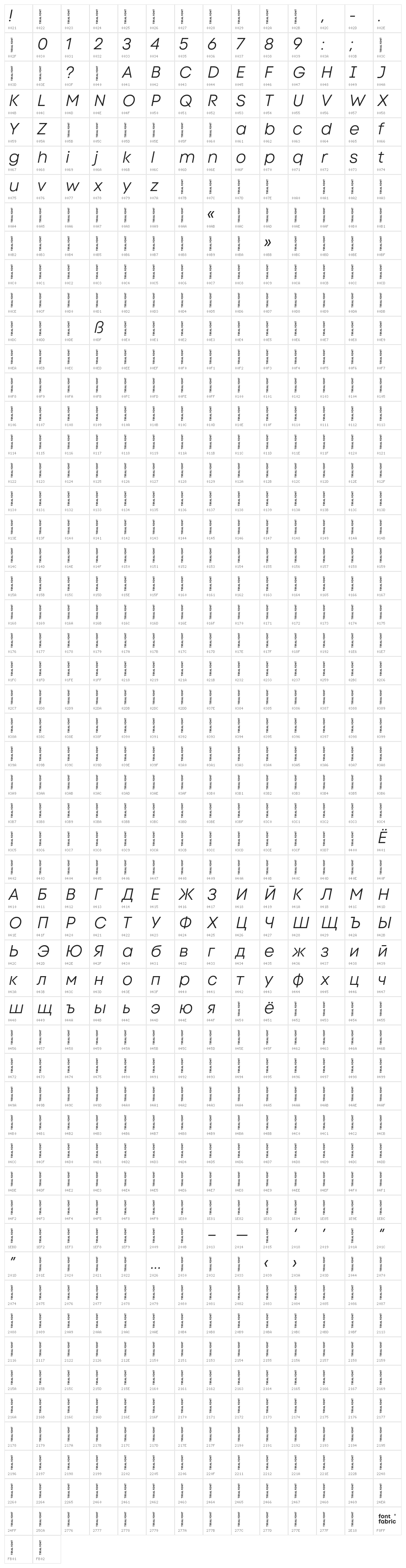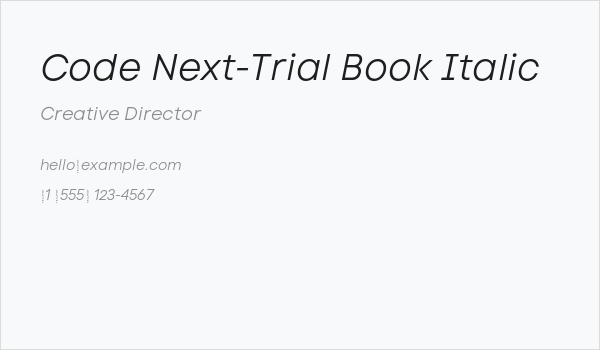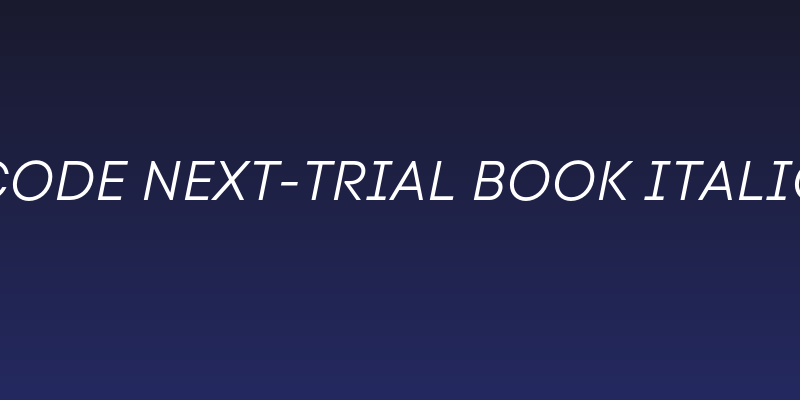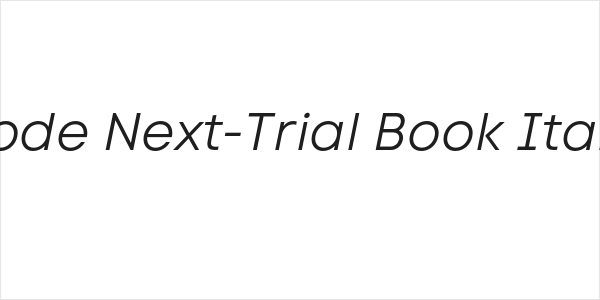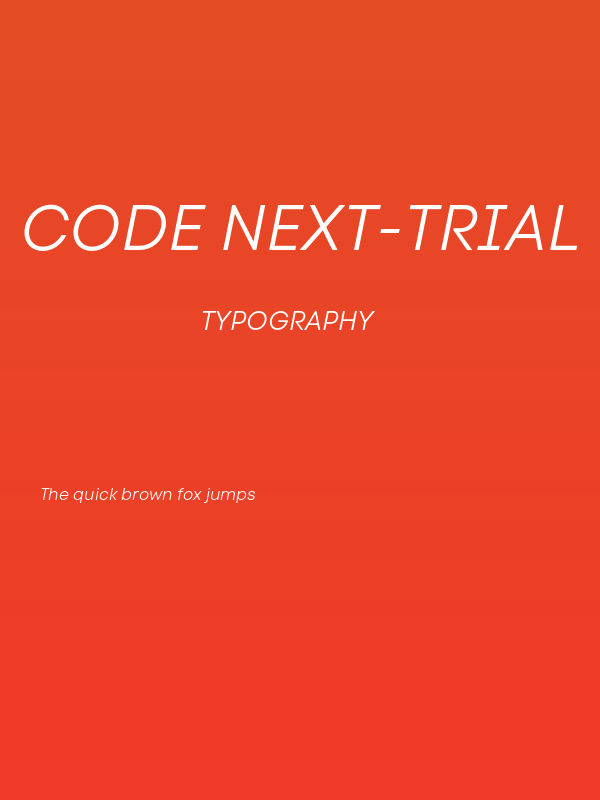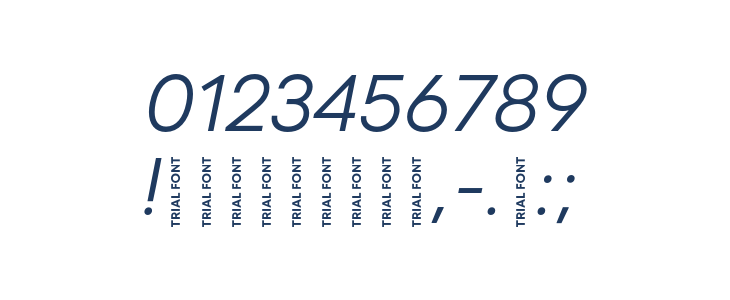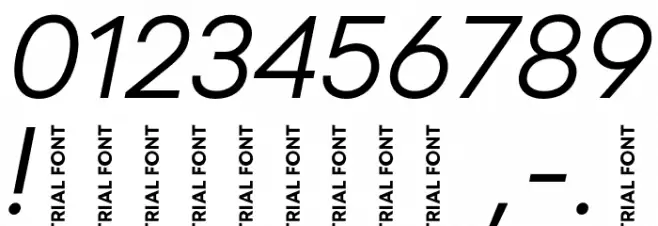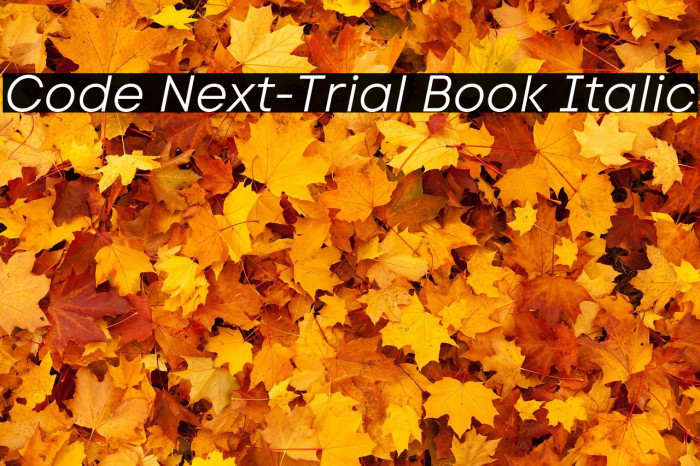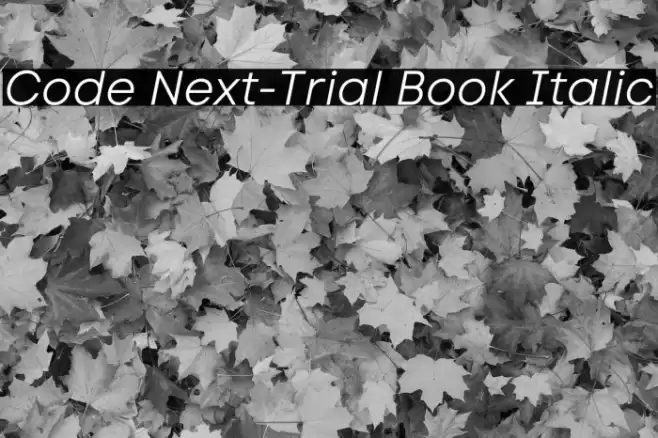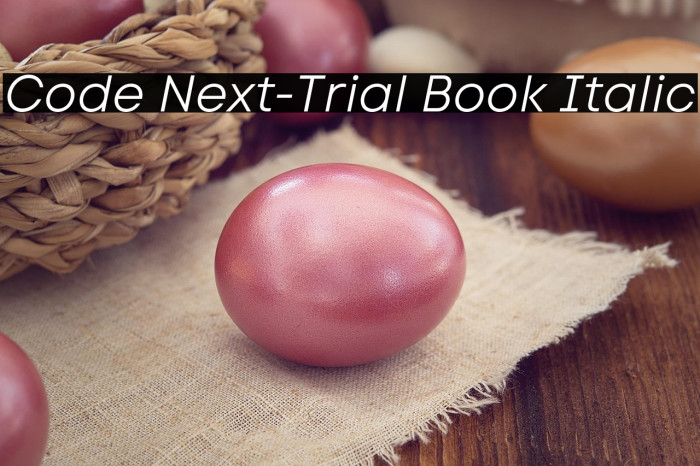
Code Next-Trial Book Italic Font
This font features a sleek and modern design with a slight italic slant, giving it a dynamic and forward-moving appearance. The characters are clean and well-defined, with a consistent stroke width that maintains readability across various sizes. The uppercase and lowercase letters are proportionate, and the numerals are clear and distinct. The special characters are designed to complement the overall style, making it versatile for different applications. Its simplicity and elegance make it suitable for both digital and print media.